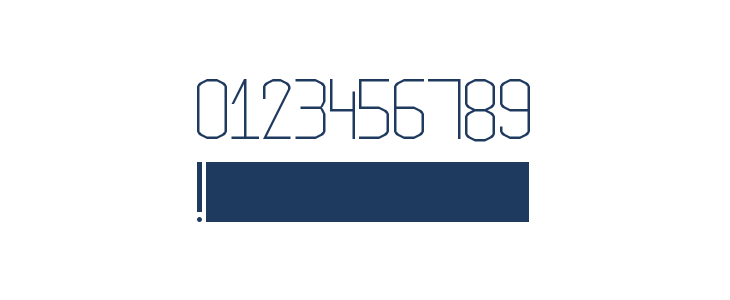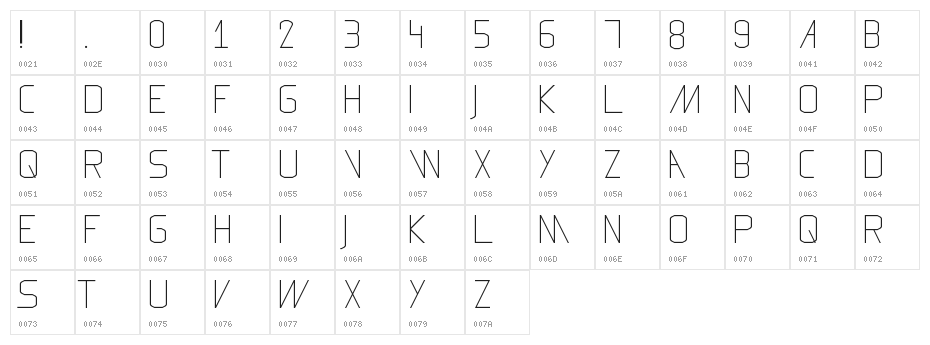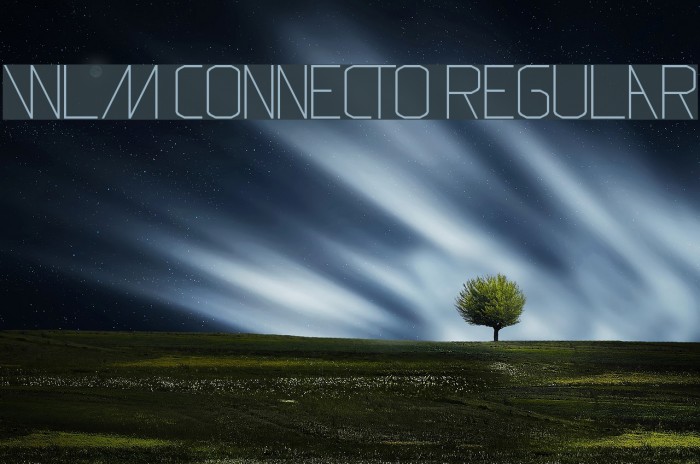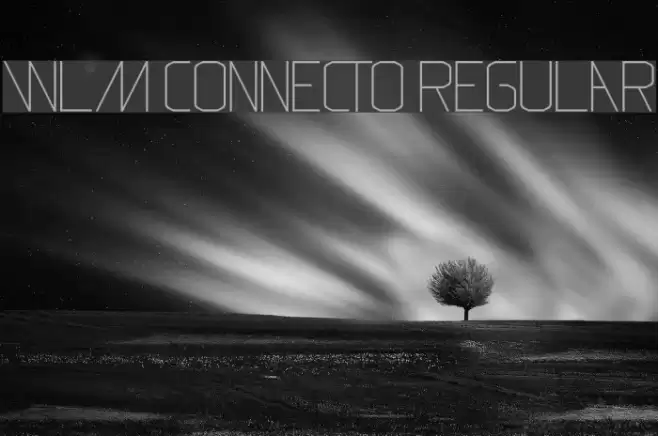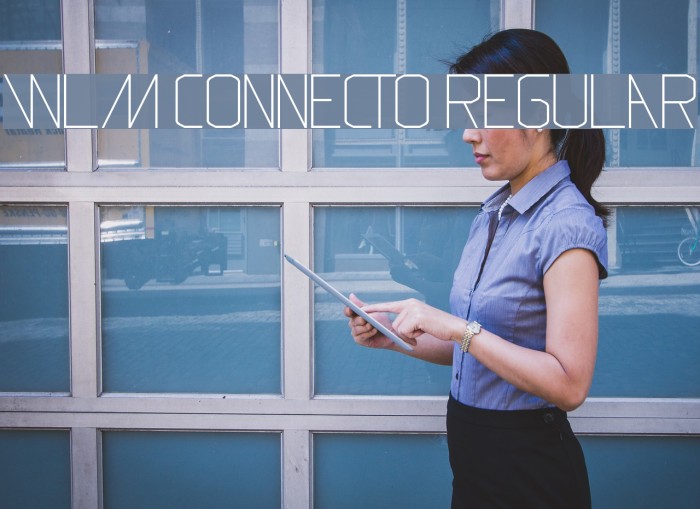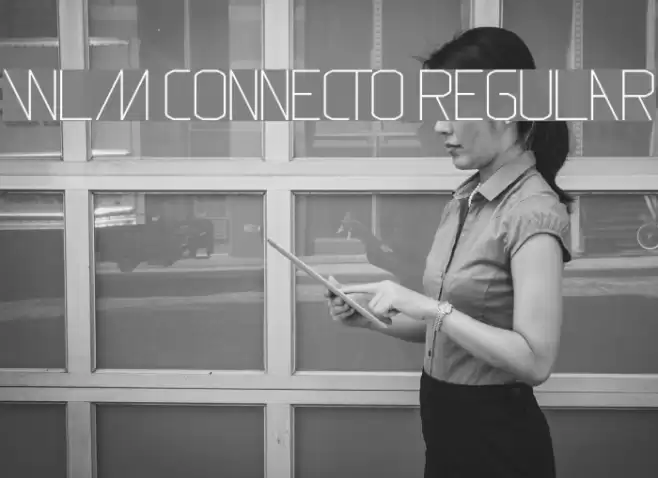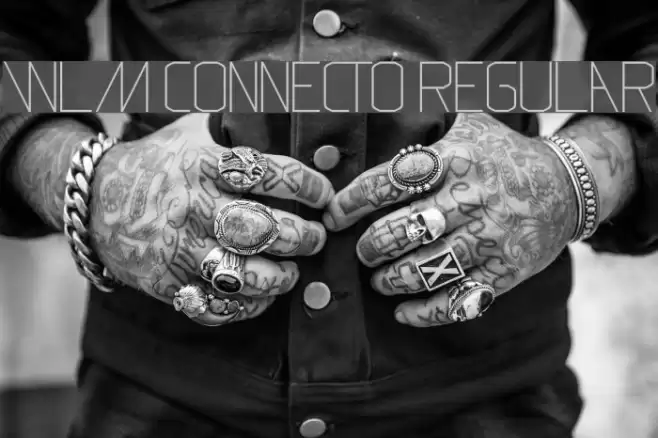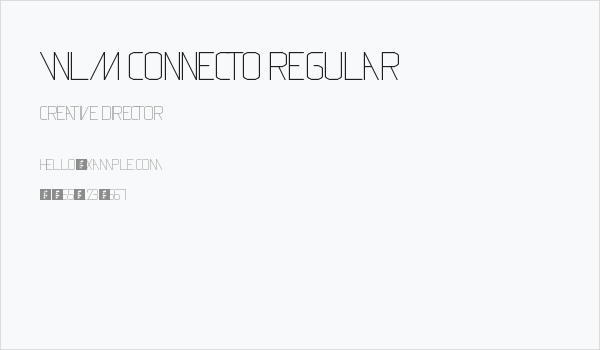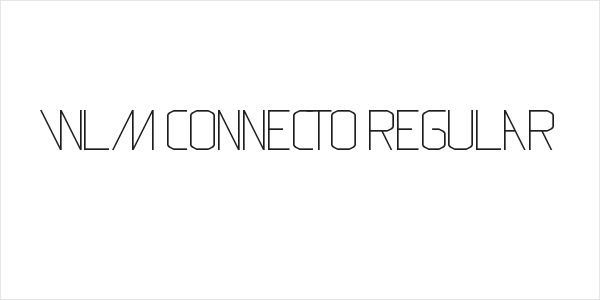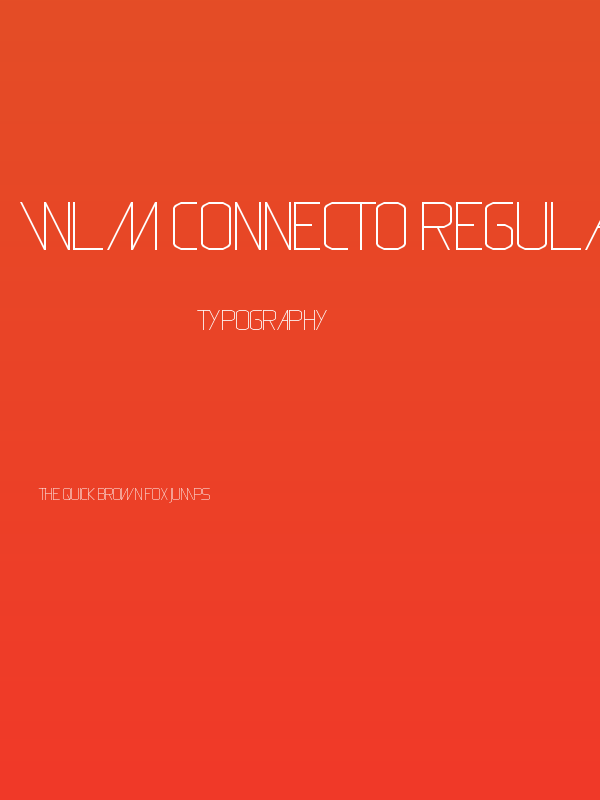
WLM Connecto Regular Font
WLM Connecto Regular Description
This font features a modern, geometric design with a focus on clean lines and minimalistic style. The characters are constructed with a consistent stroke width, giving it a uniform appearance. The uppercase letters have a distinct angularity, with sharp edges and straight lines, while the lowercase letters maintain a similar geometric structure. The numerals are designed to match the overall aesthetic, with a clear and legible form. Special characters are included, maintaining the same design principles. The font's open and airy feel makes it suitable for a variety of design applications.
| Use Case | Headlines, Logos, Digital Interfaces |
| Proposed Projects | Ideal for tech branding, modern posters, digital interfaces, and minimalist design projects. |